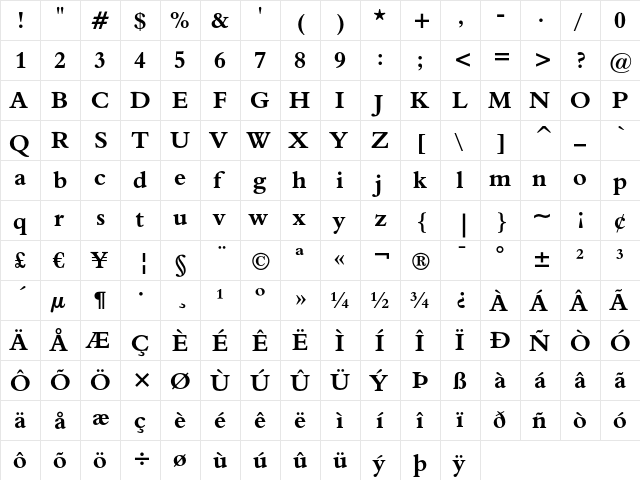
Aldine 401 Bold Font Preview
Aldine 401 Bold
Design Context for Aldine 401 Typeface
Aldine 401 takes a measured approach to typography — its balanced proportions and neutral character make it a reliable workhorse for both digital and print work. Its bold stroke weight gives it real presence on the page.